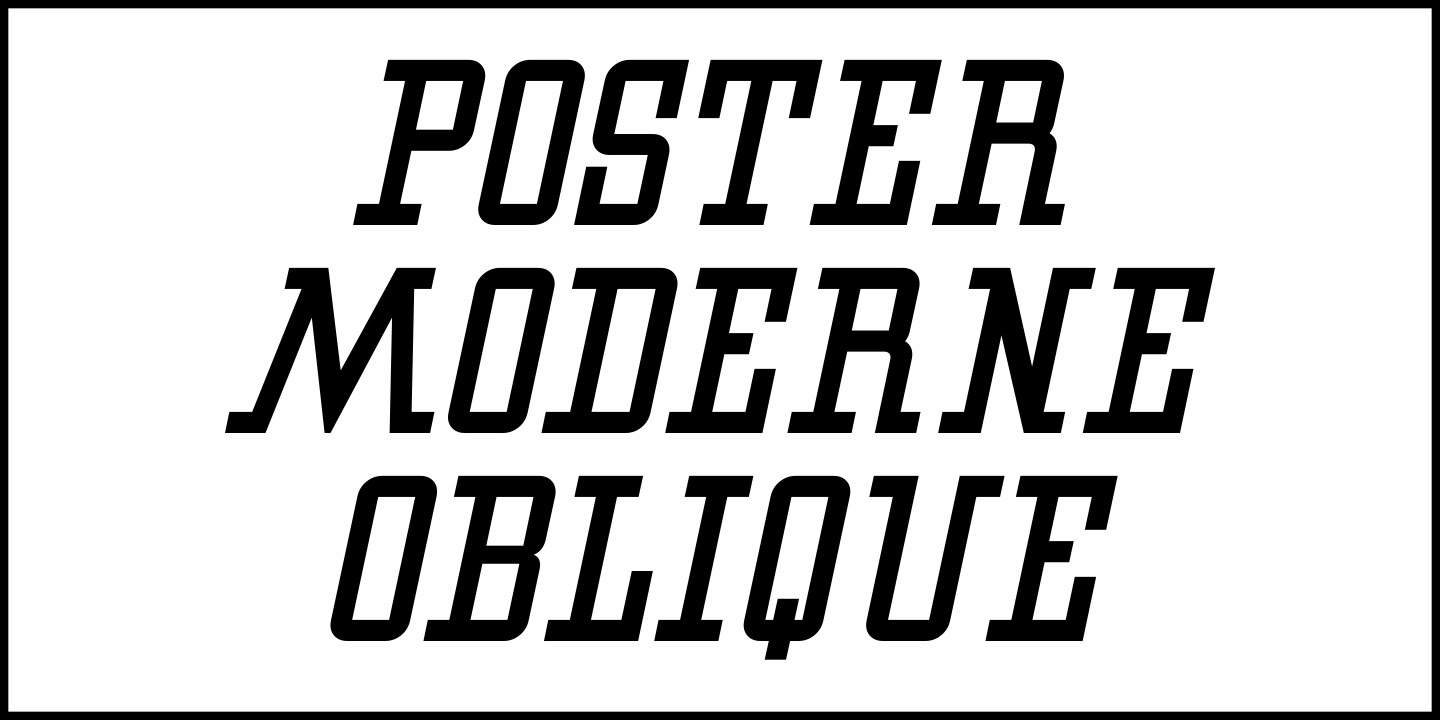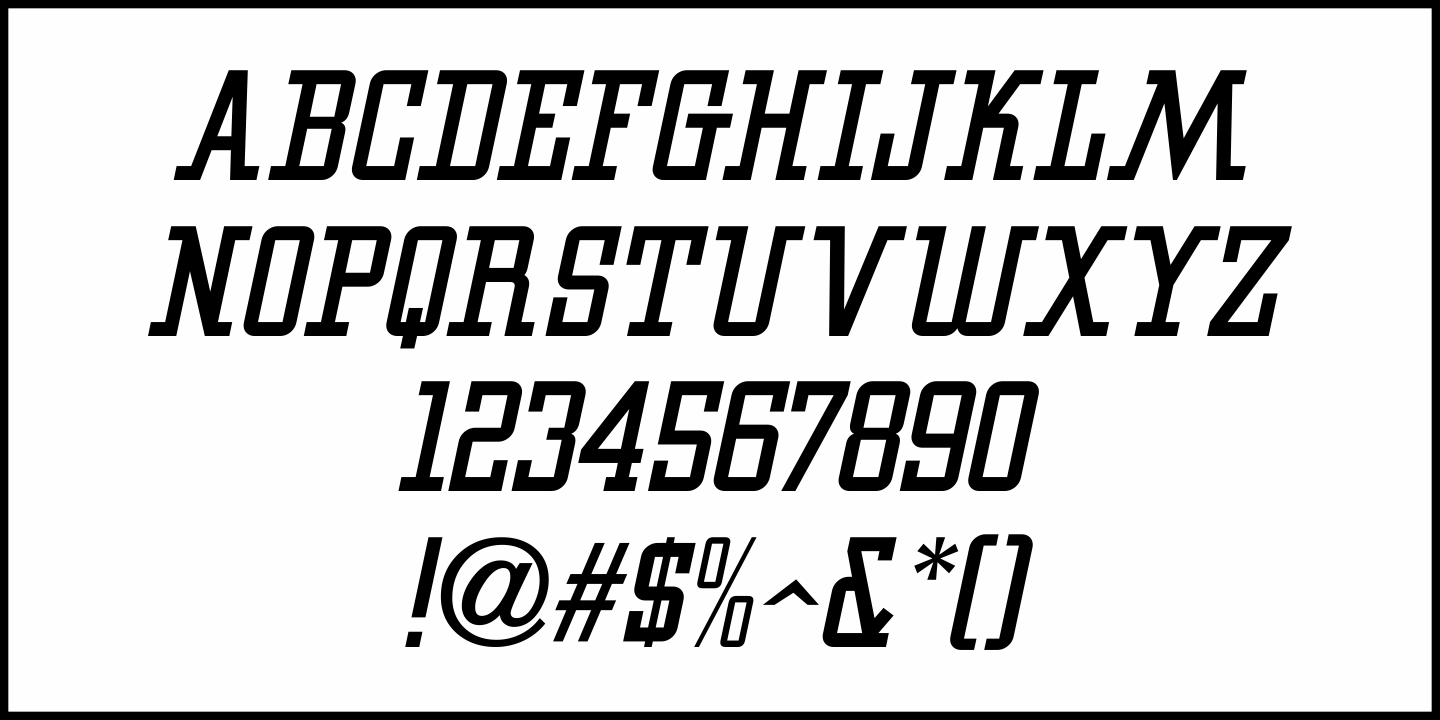
Poster Moderne
In the 1960 edition of Sam Welo's 'Studio Handbook – Letter and Design for Artists and Advertisers' is a stylized, condensed slab serif alphabet he referred to as 'Poster Slab'.
This has been digitally redrawn as Poster Moderne JNL, and is available in both regular and oblique versions.
Poster Moderne JNL Regular by Jeff Levine Fonts